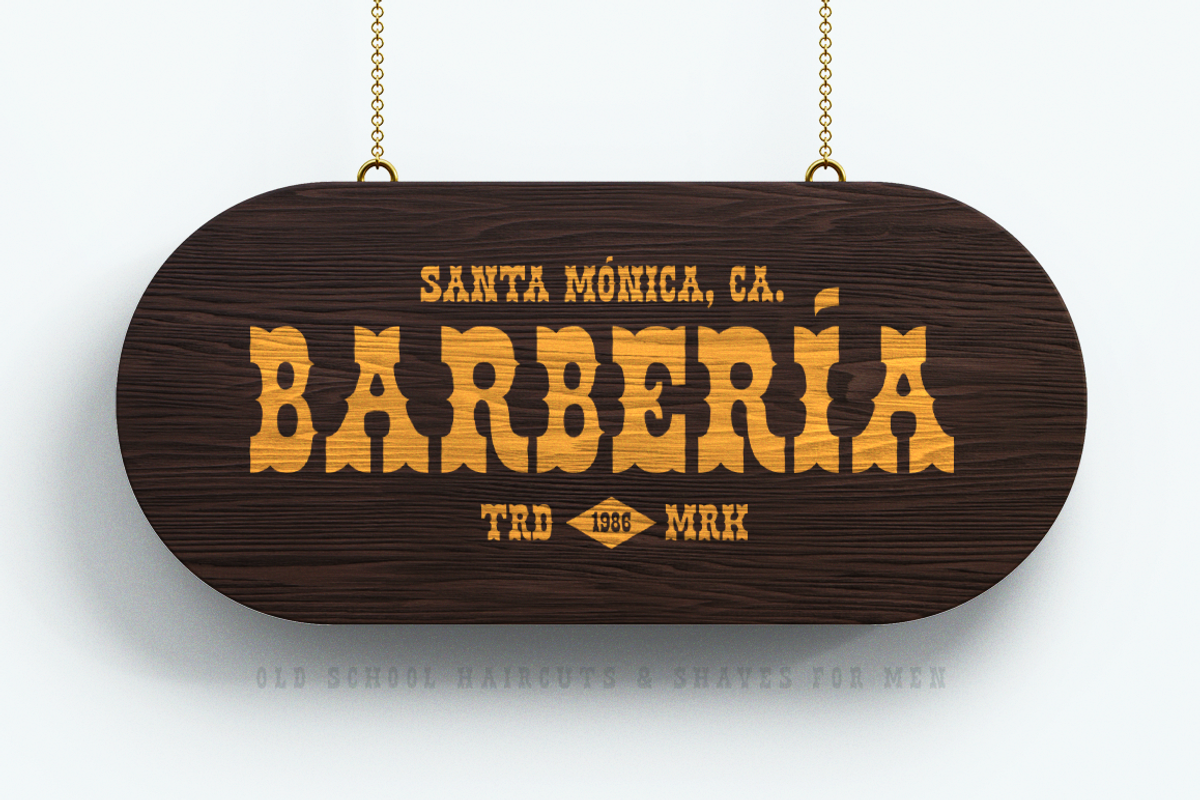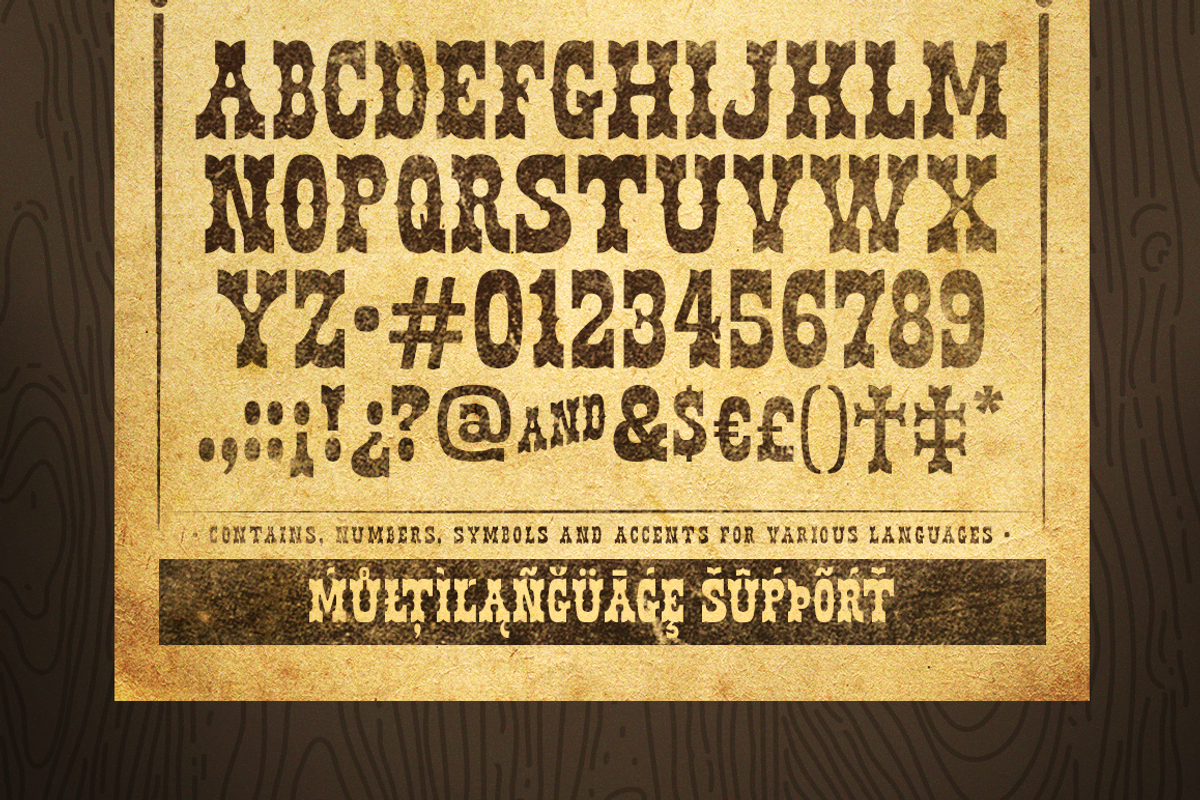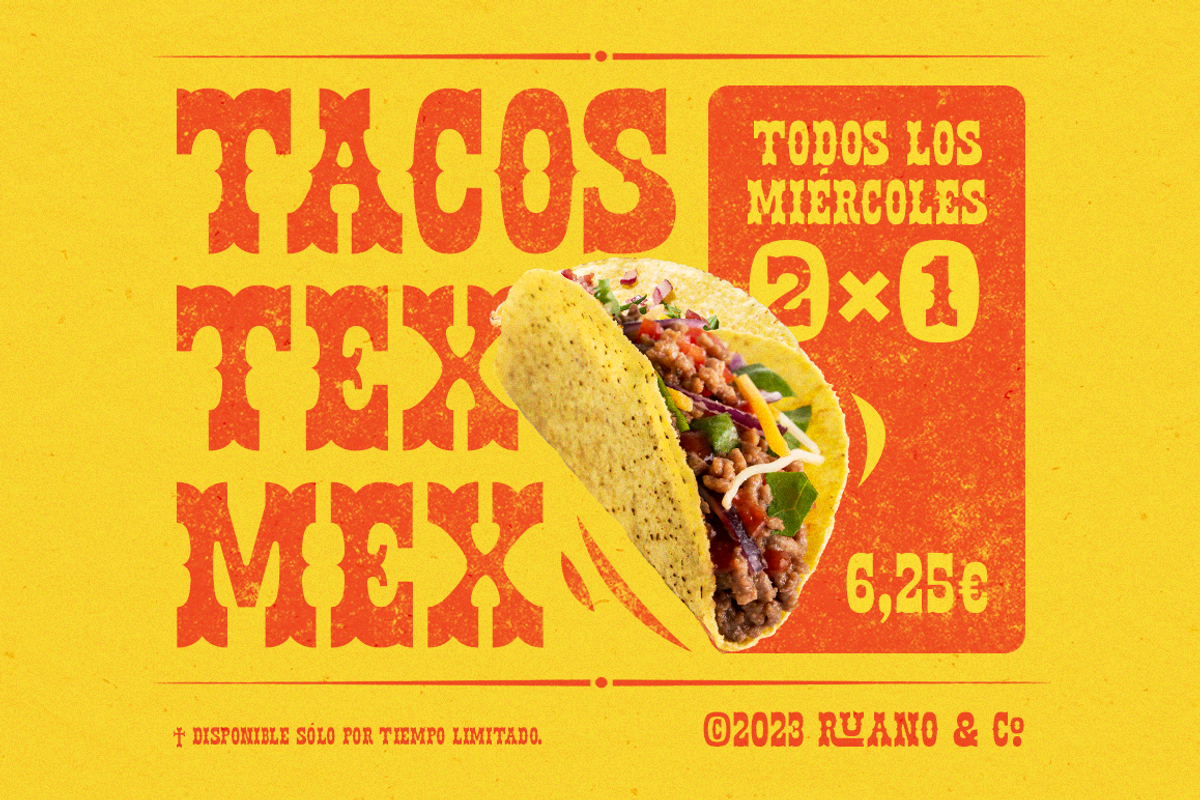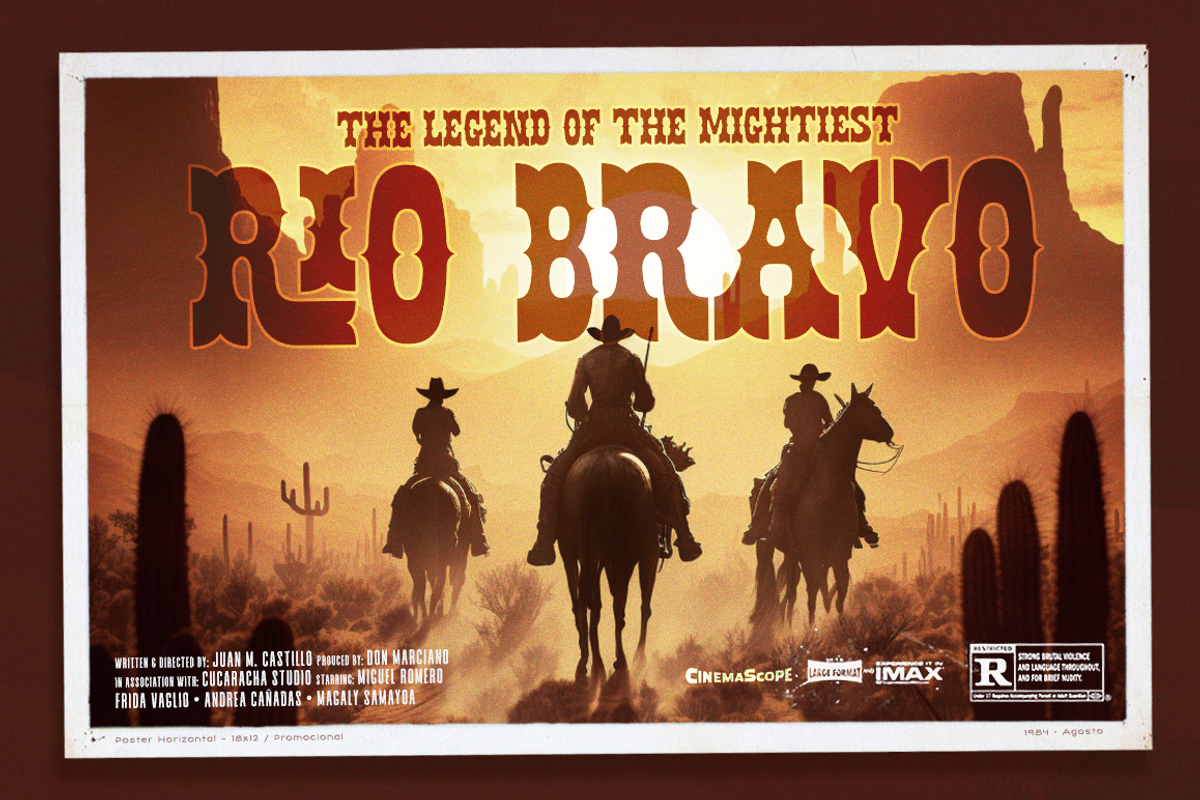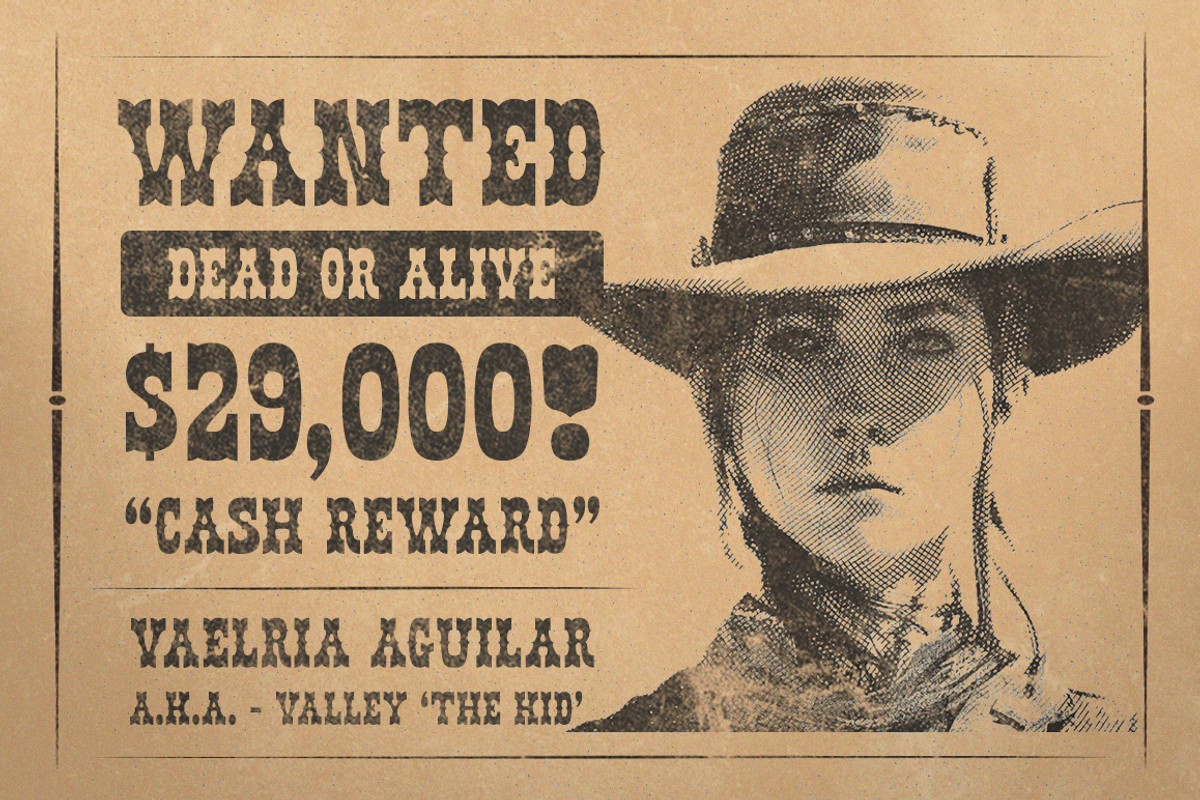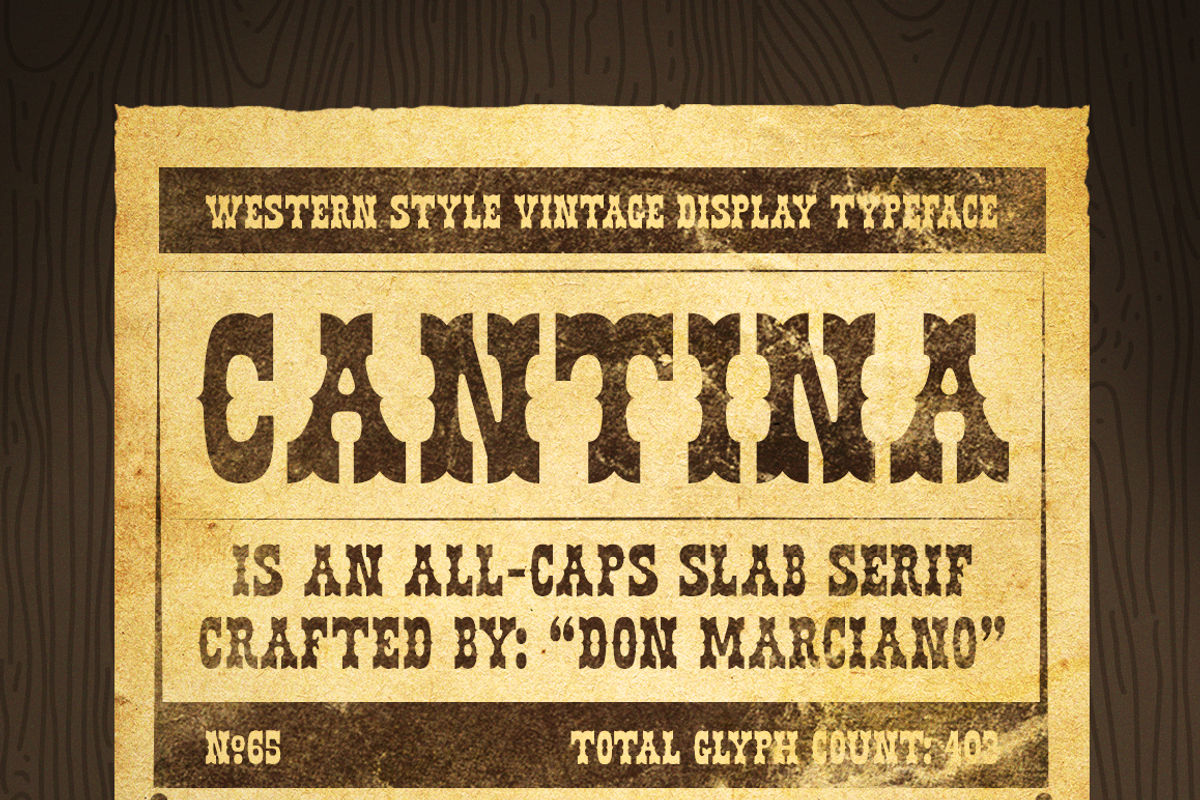
Cantina - Western Slab Serif
Cantina is a western style vintage display font, crafted in a traditional all-caps slab serif look, ideal for applications with the wild west retro-related theme: print, garments, brands, and social media uses; inspired by vintage posters of harder times, from where to survive, being tough, wasn’t enough, comes the clean cut straight lines, sharp angles from outside and round soft curve lines from the inside design of this retro typeface.